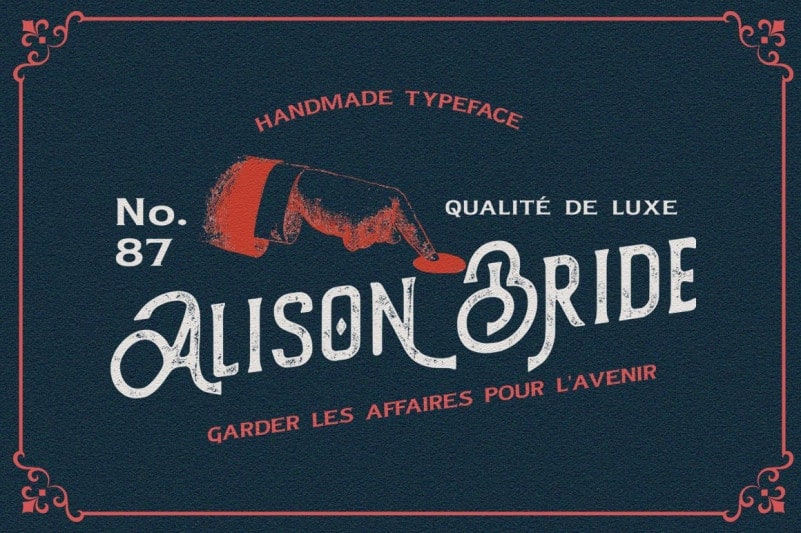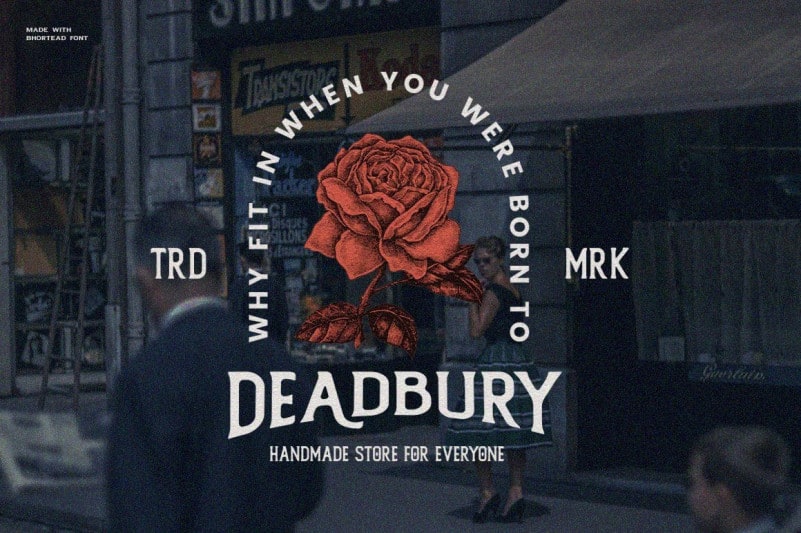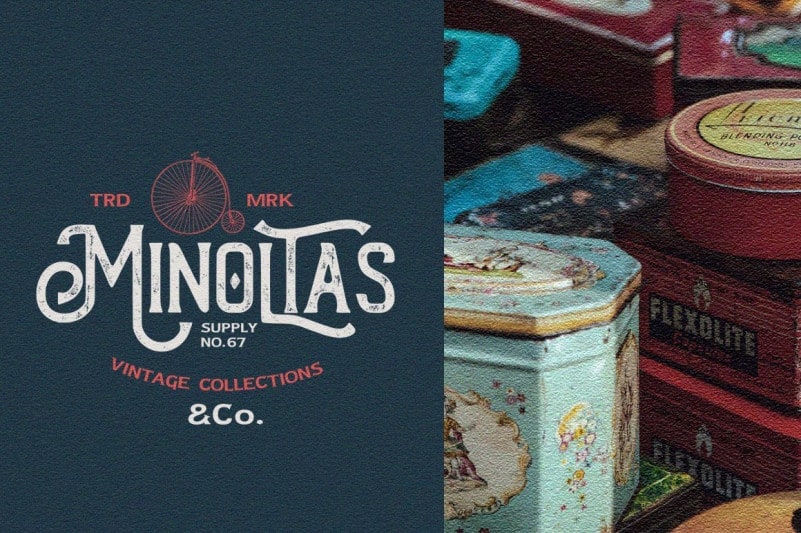
The Bhortead Display Font
The Bhortead Display Font is inspired by vintage designs manufactured by Vultype with clean and rough lines. Make the classic impression of this font stand out more. This font has 2 styles namely Clean and rough so you can use that style according to the type of project. besides this font has many opentype features so you can combine each font to be more dynamic
special features for this display font such as stylistic alternates, ligatures and swashes. Also, The Bhortead vintage rough typeface includes western european characters (multilingual support).